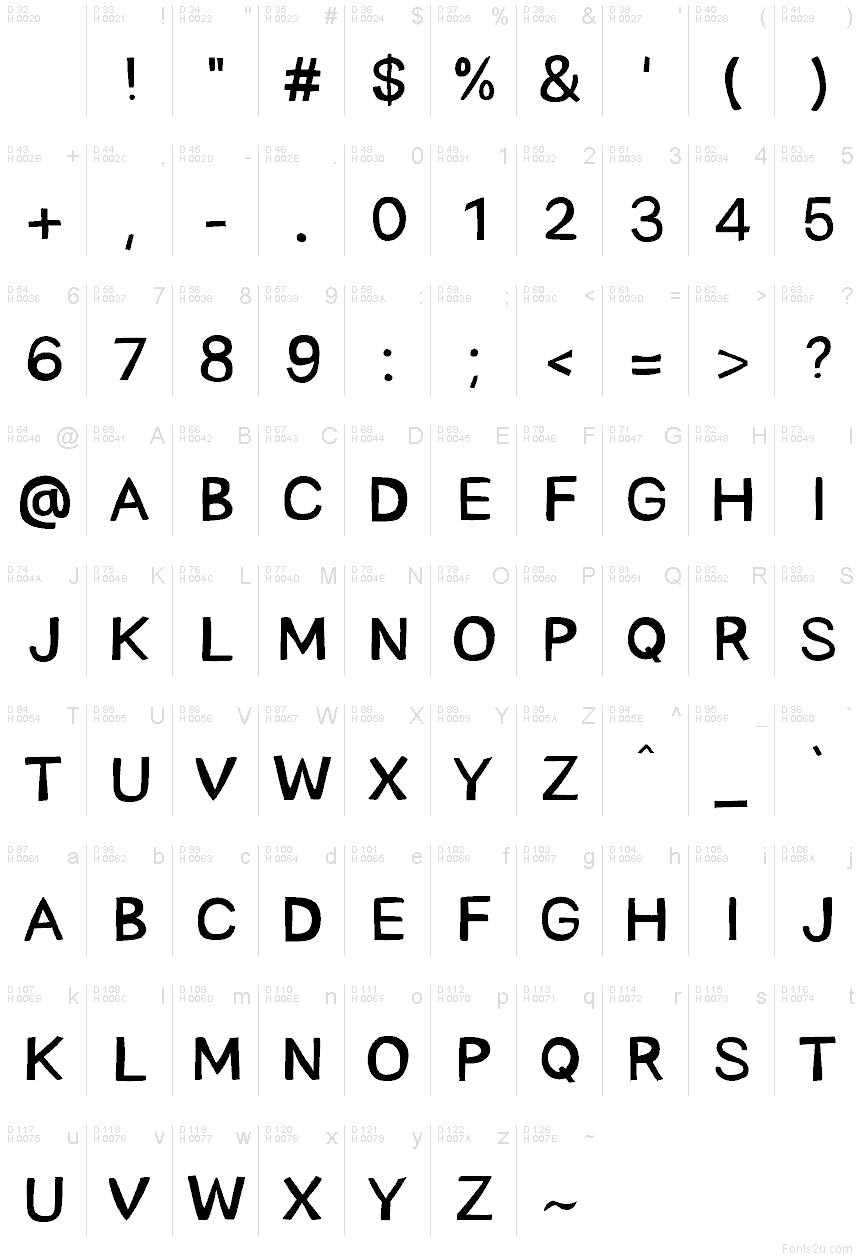
Post Wall
Post Wall font by Origin Type is a free cartoon display typeface that hits like hand-painted lettering on concrete. Thick strokes, scuffed edges, and a slightly wobbly rhythm give it that marker-to-wall energy—bold, noisy, and wonderfully human. It reads fast at a glance, but still carries plenty of texture, so titles feel lively instead of canned.
Using Post Wall, headlines jump off posters, street-food menus, event flyers, thumbnails, stickers, and kids’ activity sheets. The chunky forms pack impact in short bursts and hold together when scaled big, making this free font a natural fit wherever you need punchy, playful emphasis. Pair it with a clean sans like a neutral grotesk to keep body copy steady while the title makes noise.